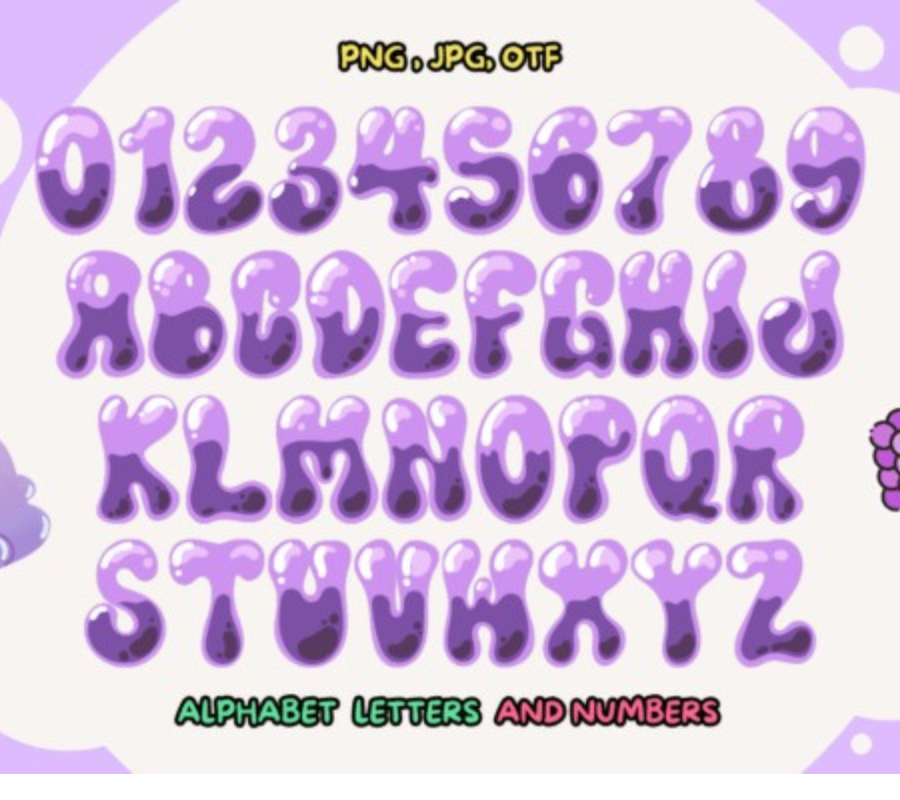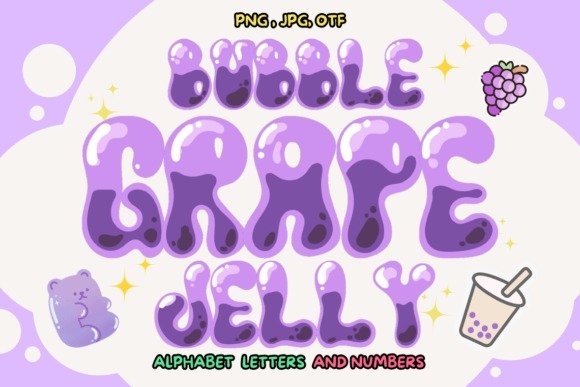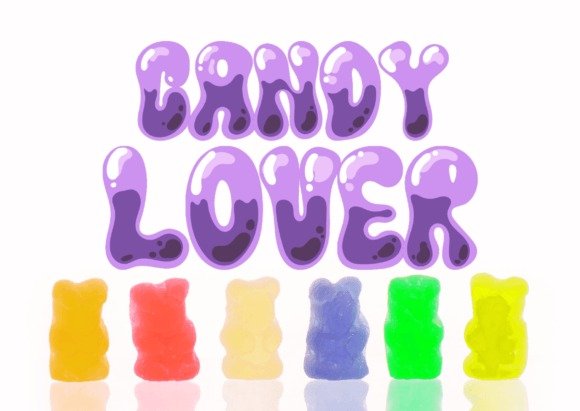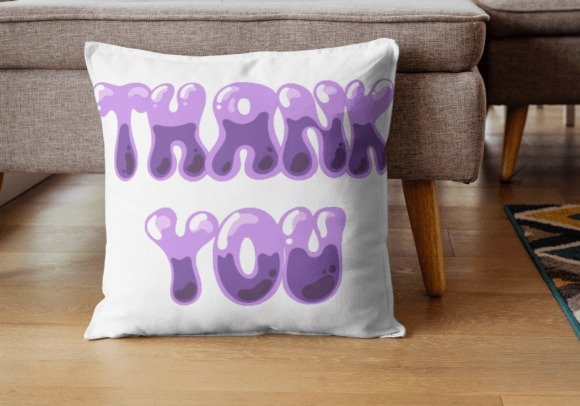
Bubble Grape Jelly Font: Playful Typography with Sweet Personality
Typography has the power to shape emotions, create moods, and give designs a personality of their own. The Bubble Grape Jelly Font is a perfect example of typeface design that doesn’t just communicate words—it conveys fun, charm, and youthful energy. With its soft curves, rounded forms, and plump, bouncy letter shapes, this font looks as though it has been molded from candy or jelly, making it both delightful and approachable.
Playful and Versatile Design
The font captures the joyful spirit of childhood and creativity. Its rounded characters are designed with a hand-drawn, bubbly style that feels both organic and lighthearted. While it leans heavily toward playful and informal projects, the Bubble Grape Jelly Font is versatile enough to be used in multiple creative contexts—from branding for food and beverage products to children’s books, toy packaging, or party invitations.
Perfect for Creative Projects
Designers looking to add personality to their work will find this typeface especially useful. Its whimsical nature makes it ideal for:
Children’s Products – Toys, games, educational materials.
Food & Beverage Branding – Sweets, drinks, bakeries, or fun packaging.
Event Materials – Birthday parties, festivals, and creative social media graphics.
DIY & Crafting Projects – Stickers, scrapbooking, and handmade product labels.
A Font with Personality
The Bubble works best when the goal is to create joyful, friendly, and eye-catching design pieces. Its round shapes suggest softness and fun, appealing to both kids and adults. More than just a typeface, it’s a tool to inject playfulness into design projects while keeping them polished and visually consistent.